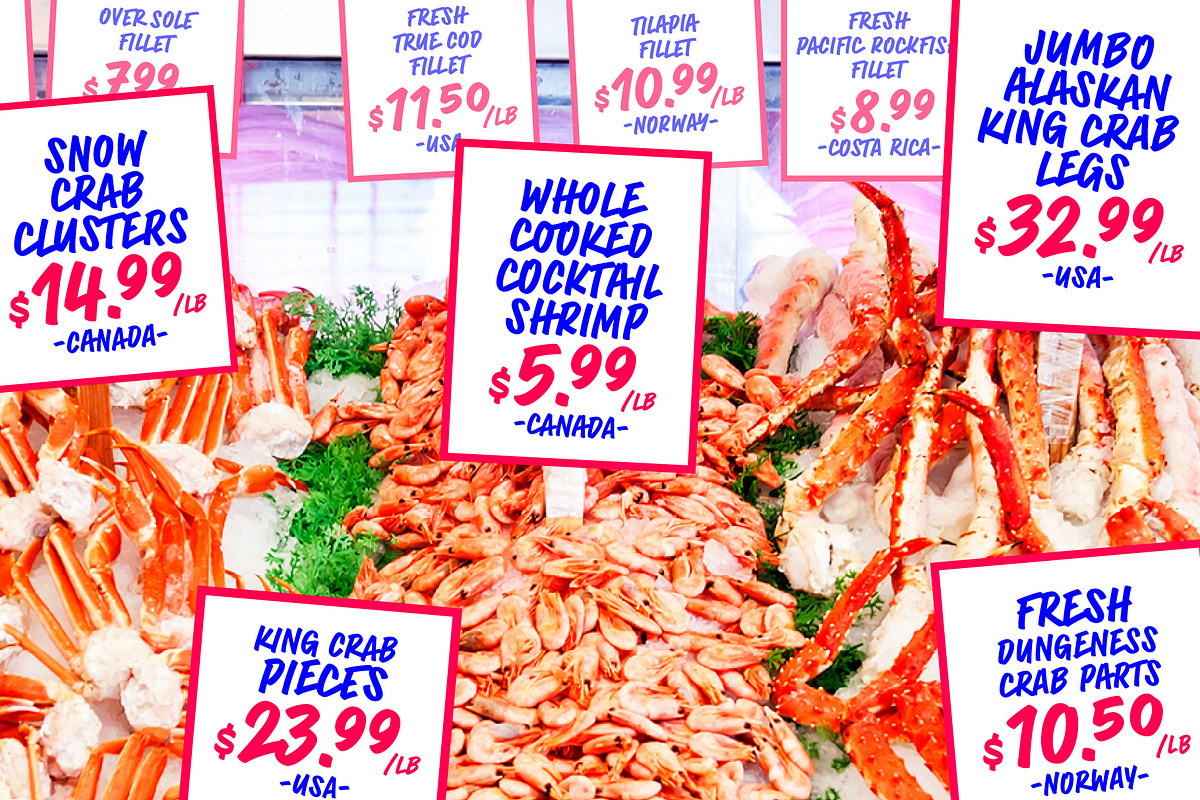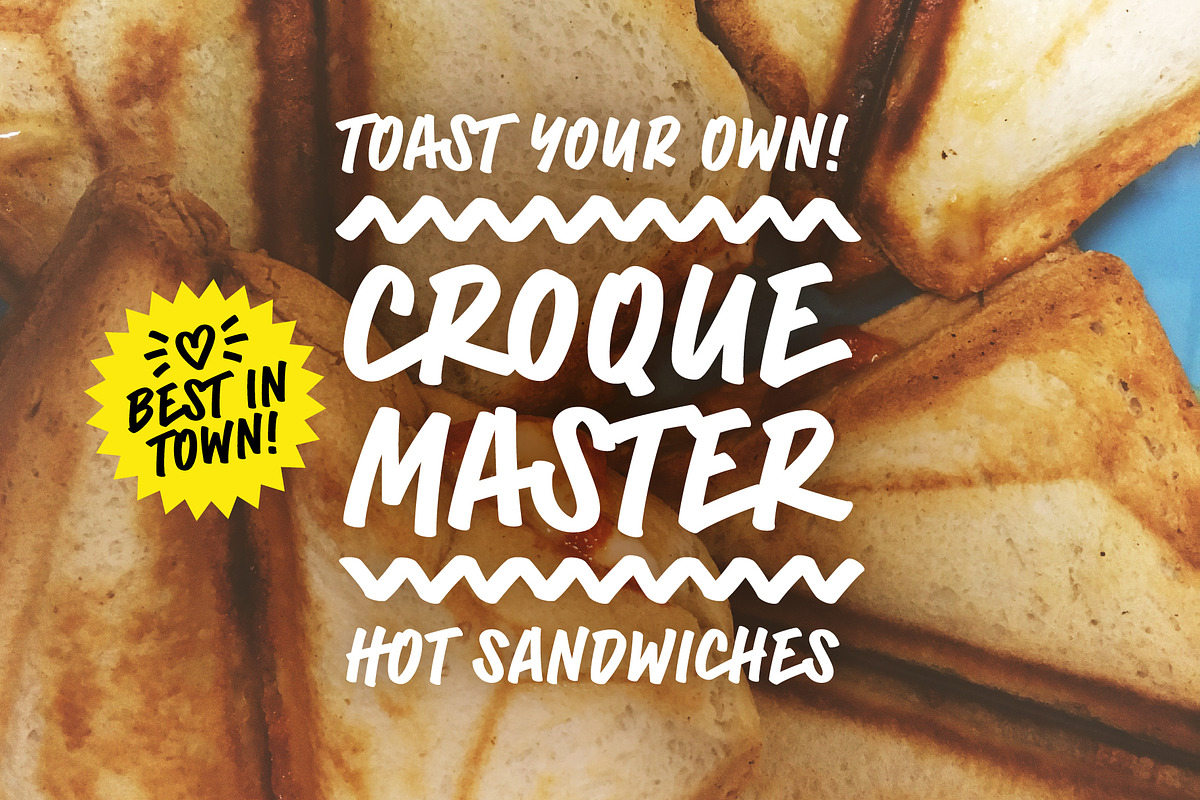
Sandwich Marker Pro
Sandwich Marker Pro is a handwritten uppercase font with more than 500 glyphs. Each glyph has at least three stylistic alternate sets, designed for an authentic expression of handwritten text without boring, recurring glyphs. Play easily with stylistic sets in any Open Type savvy program by clicking the options or selecting specific glyphs manually from the glyph palette. Use bonus characters to add special personality to your designs.
Sandwich Marker Pro is inspired by the idea of handwritten chalkboard signs in restaurants, bars, shops or on the market. The Idea is looking for a living, authentic marker font with interesting ligatures without the cheap feeling of the 80ies and boring recurring letters. A font with some connected block letters in case of the natural drive of handwriting instead of classic script glyphs.